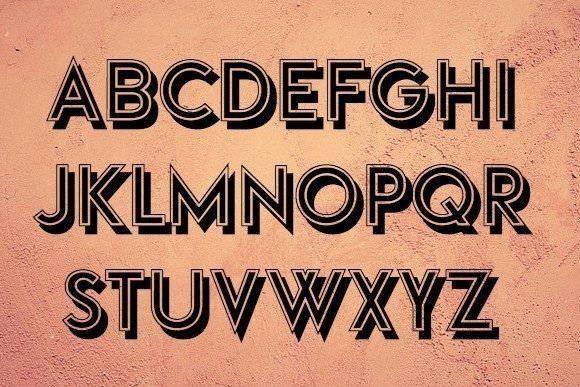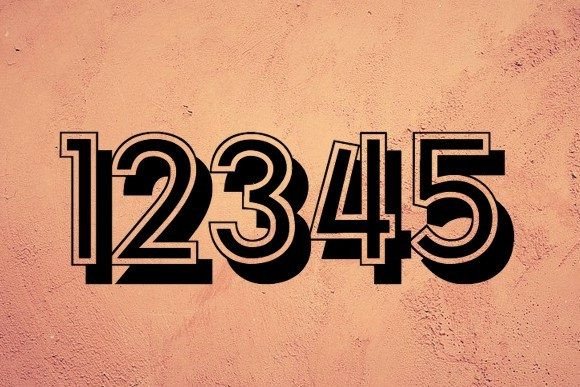
Bond Font: Elevate Your Creations with a Cool, Retro-Style Sans Serif Display Font
Are you looking for a font that adds a touch of sophistication and style to your designs? Look no further than the Bond Font. This cool, retro-style sans serif display font is perfect for designers and crafters who want to elevate their creations and make them stand out from the crowd. In this article, we’ll take a closer look at the Bond Font, its features, and how you can use it to take your designs to the next level.
What is Bond Font?
Bond Font is a trendy and stylish sans serif display font that is inspired by the classic typography of the past. Its retro-style design makes it perfect for creating eye-catching headings, titles, and logos that are sure to grab attention. The font is clean, modern, and highly legible, making it suitable for a wide range of design projects, from branding and advertising to packaging and digital media.
Key Features of Bond Font
So, what makes Bond Font so special? Here are some of its key features:
• Retro-style design: Bond Font has a unique, retro-style design that is inspired by the classic typography of the past.
• Sans serif: The font is a sans serif font, which means it doesn’t have any decorative lines or flourishes.
• Clean and modern: Despite its retro-style design, Bond Font is clean and modern, making it perfect for contemporary design projects.
• Highly legible: The font is highly legible, even at small sizes, making it suitable for a wide range of design applications.
• Trendy and stylish: Bond Font is a trendy and stylish font that is sure to add a touch of sophistication to your designs.
How to Use Bond Font in Your Designs
Now that we’ve covered the features of Bond Font, let’s take a look at how you can use it in your designs. Here are some ideas to get you started:
• Headings and titles: Use Bond Font to create eye-catching headings and titles that are sure to grab attention.
• Logos and branding: The font is perfect for creating logos and branding materials that need to make a statement.
• Advertising and marketing: Use Bond Font to create ads and marketing materials that are sure to stand out from the crowd.
• Packaging: The font is suitable for packaging design, particularly for products that need to convey a sense of style and sophistication.
• Digital media: Bond Font can be used in digital media, such as social media graphics, website headers, and more.
Tips for Getting the Most Out of Bond Font
Here are some tips for getting the most out of Bond Font:
• Use it sparingly: Bond Font is a bold font, so use it sparingly to avoid overwhelming your design.
• Experiment with colors: The font looks great in a range of colors, so experiment with different colors to find the one that works best for your design.
• Pair it with other fonts: Bond Font can be paired with other fonts to create a unique and interesting design.
• Pay attention to font size: Make sure to use Bond Font at a size that is large enough to be legible, but not so large that it overwhelms your design.
Font Name Bond Font
Author vladimirnikolic
In conclusion, Bond Font is a cool, retro-style sans serif display font that is perfect for designers and crafters who want to elevate their creations and make them stand out from the crowd. With its trendy and stylish design, clean and modern aesthetic, and highly legible lettering, Bond Font is sure to add a touch of sophistication to your designs. Whether you’re creating headings and titles, logos and branding materials, or advertising and marketing materials, Bond Font is a great choice. So why not give it a try and see how it can take your designs to the next level?
Recommendation: If you’re looking for a font that adds a touch of style and sophistication to your designs, Bond Font is a great choice. Its retro-style design, clean and modern aesthetic, and highly legible lettering make it perfect for a wide range of design projects.